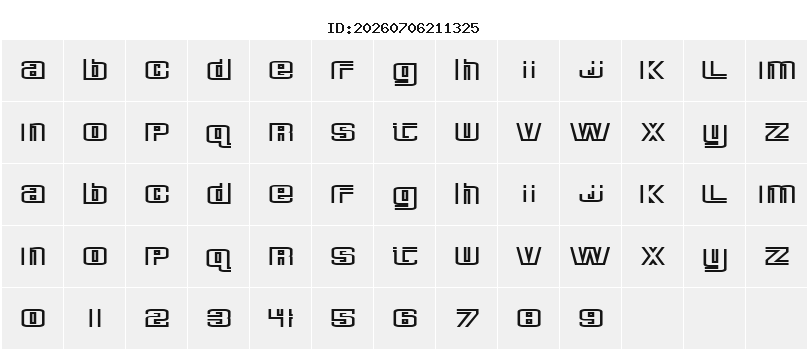
• Font Name: Deluxe Ducks
• Designer: Ray Larabie
• Manufacturer: Larabie Fonts
About Deluxe Ducks.ttf
Deluxe Ducks.ttf is a modern, elegant sans-serif font designed for ultimate readability and visual harmony. Perfect for branding, headlines, web design, and print materials.